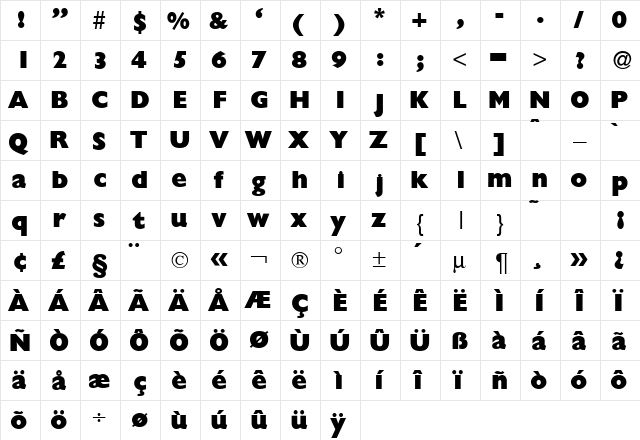
GillionBlackDB Normal Font Preview
GillionBlackDB Normal
Design Context for GillionBlackDB Typeface
GillionBlackDB is a composed and adaptable typeface that performs quietly and consistently across a wide range of design contexts.